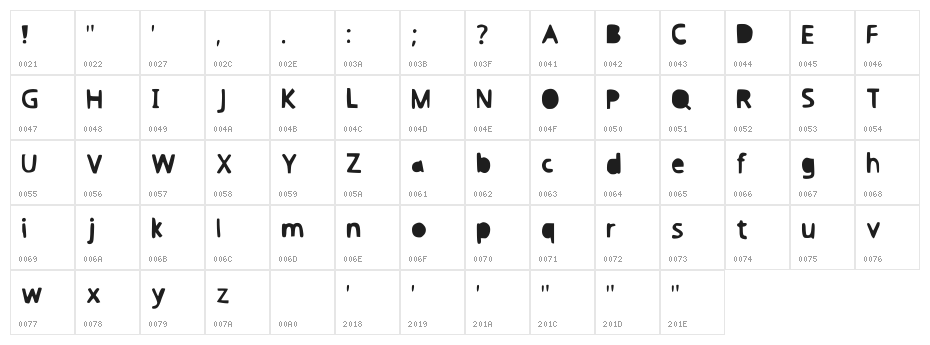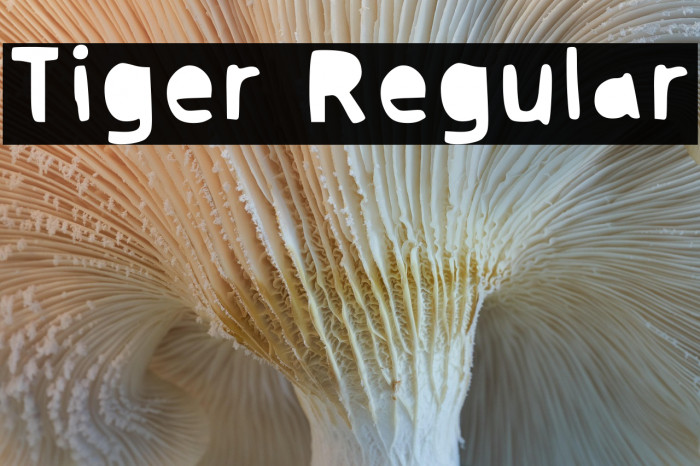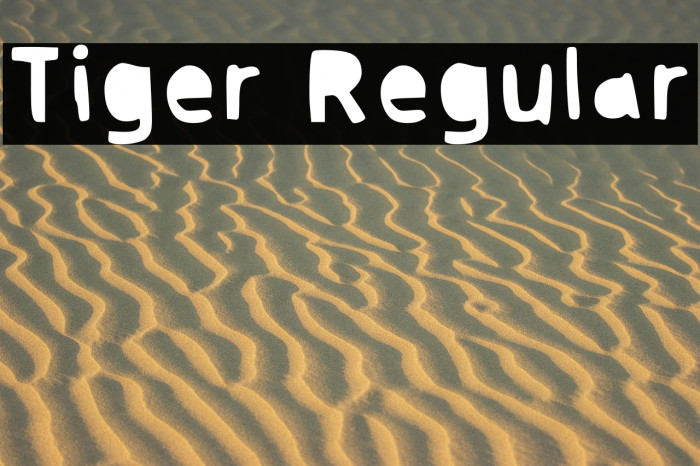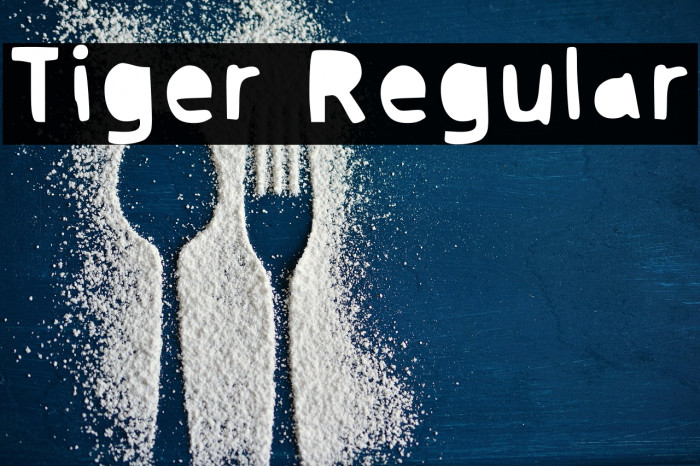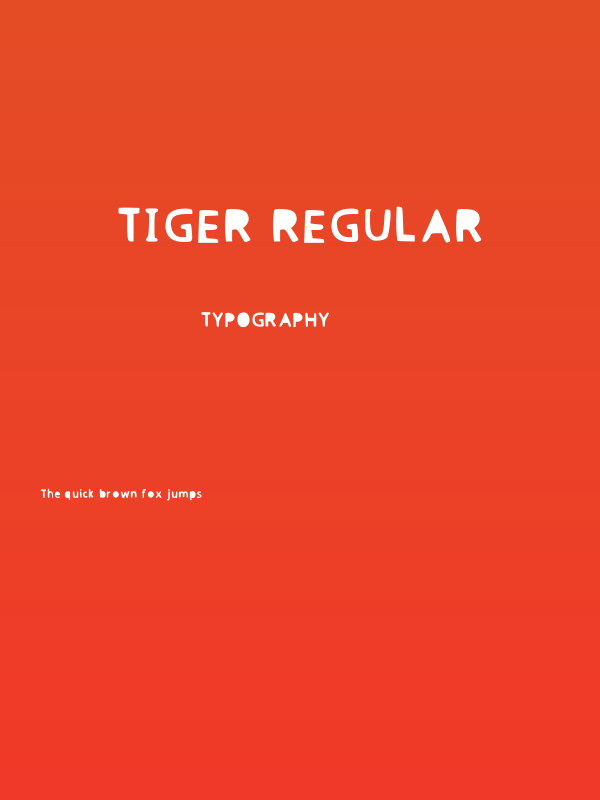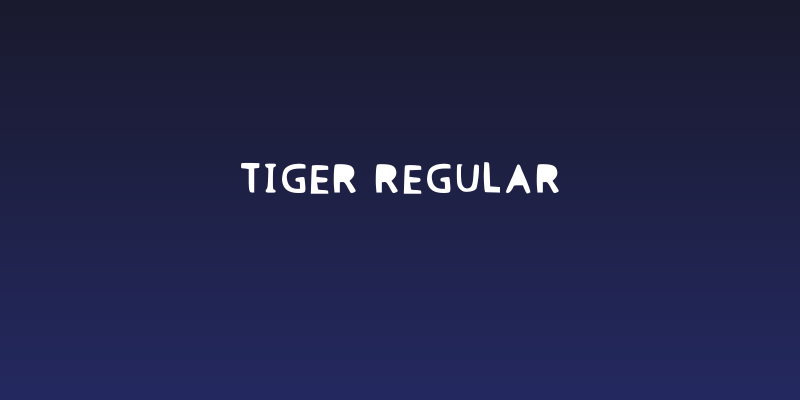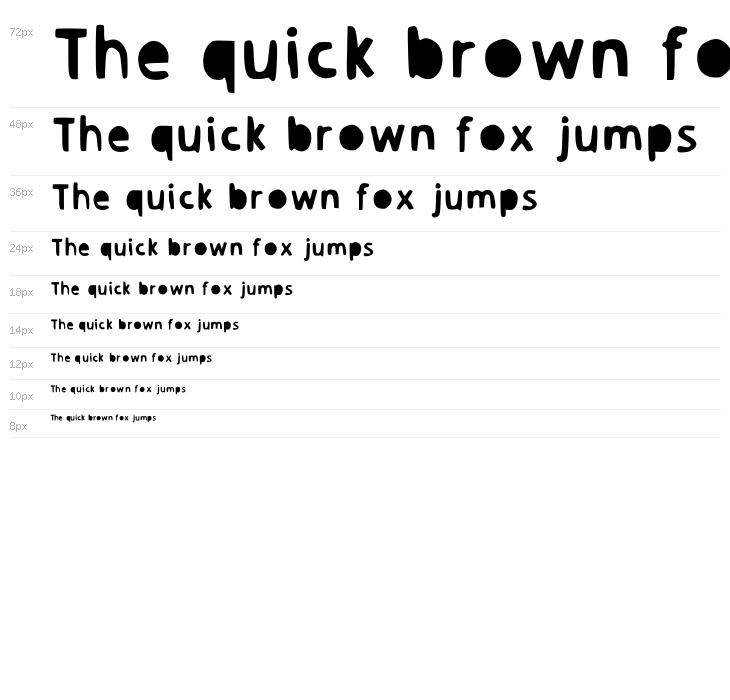
Tiger Regular Font
Tiger Regular Description
This playful and bold font features a unique, hand-drawn style with a slightly irregular shape, giving it a whimsical and friendly appearance. The characters are thick and rounded, with a consistent stroke width that provides a solid and substantial look. The uppercase and lowercase letters maintain a uniform height, enhancing readability while adding a touch of charm. The numerals and special characters are designed to match the playful aesthetic, making this font suitable for creative and informal projects. Its distinctive style is perfect for capturing attention and conveying a sense of fun and creativity.
| Overall Style | Playful |
| Proposed Projects | Ideal for children's books, playful branding, creative posters, and informal invitations. |